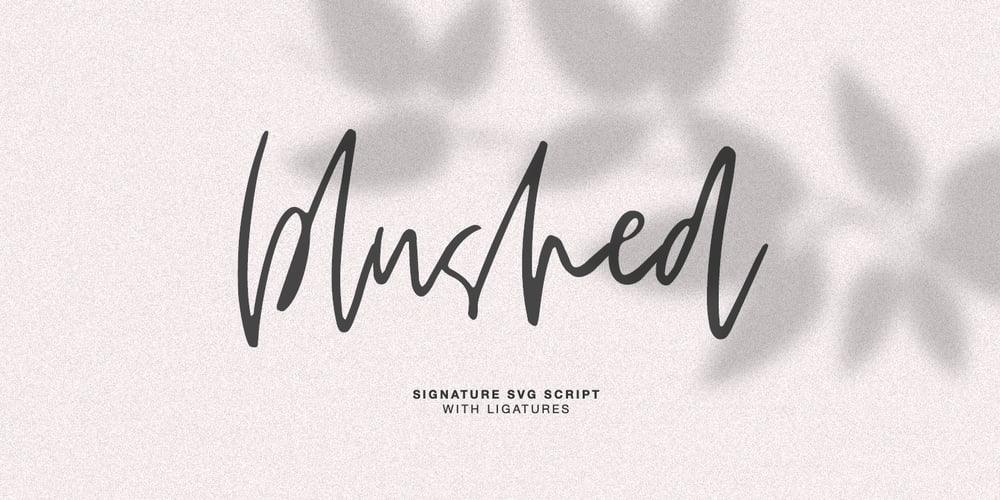
Blushed Font Family was designed by Dmitrii Chirkov and published by Supfonts. Blushed contains 1 styles and family package options. Hello, friends. I keep experimenting with handwritten fonts, shapes and lines. I want the font to set the tone, the atmosphere, and look like an inscription made in a hurry, but it is well read. Blushed combines all these qualities. Simple and clear, looks at ease. It is perfect for signatures or design, where you do not need a strict style. Test it out below to see how it could look for your next project! Includes: Uppercase and lowercase Numbers and punctuation Foreign language support Ligatures Check out my blog: https://www.instagram.com/zloillev pinterest.com/dmitriychirkov7 Enjoy